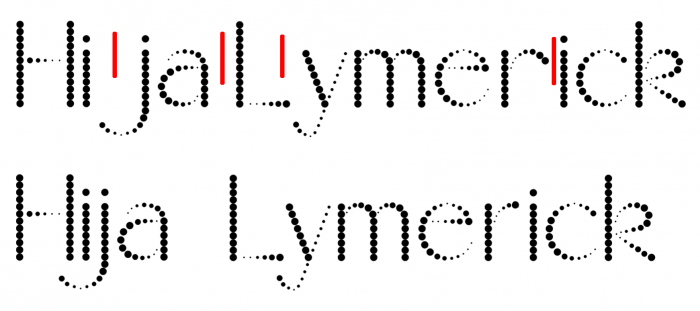
Nice font!
Great first FS!
Wonderful!
nice!
Cool font, very beautiful, but we still need to work on kerning. Maybe you should work on the j y r a little more.
I'm with Dmitriy Sychiov. How about something like this?
@elmo: Great suggestion, and I would keep the original lowercase 'r' and put it in another suitable location for stylistic alternative glyph for 'r' with its terminals curving all the way round to use with more circular adjacent characters. Top notch!
Congratulations! FontStruct Staff have deemed your FontStruction worthy of special mention. “Lunatic” is now a Top Pick.
Congrats on your first TP!
Congratulations!
Beautiful work, these curves are wonderful!
Really like the look of this one. It looks elegant and fun at the same time.
Great first fontstruction!
is the creator of this font gonna do more fonts?
Yep
He Will
and how u know?
anyways this font looks like it's related to the shopping mall Oasiz in Torrejón de Ardoz in Spain ngl
wow
amazing